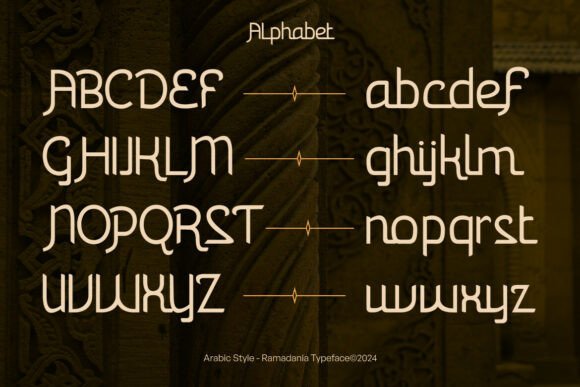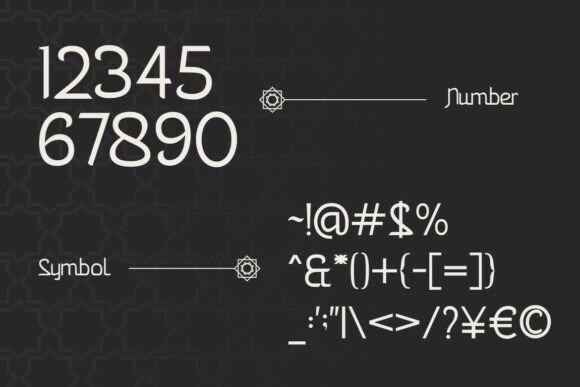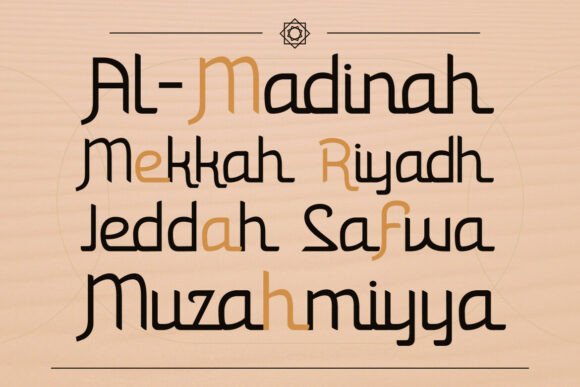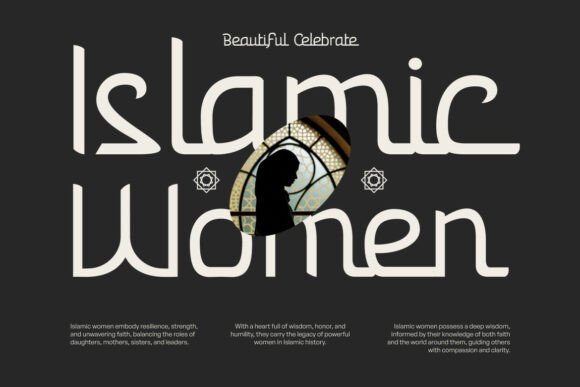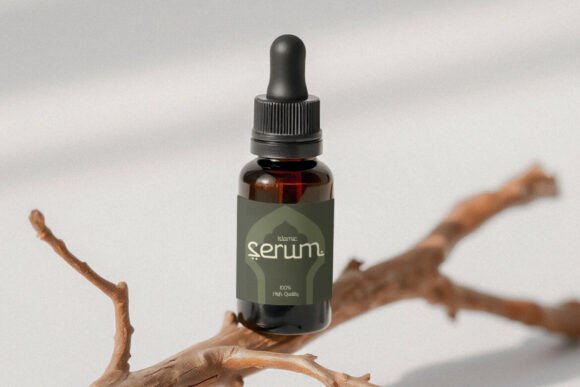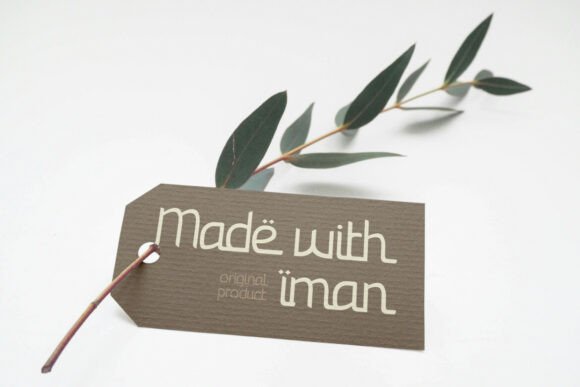
Introduction to Ramadaniya Font
Have you ever stumbled upon a design that perfectly captures the essence of a moment? Perhaps it’s the gentle hue of a sunset or the intricate patterns of a traditional craft. For me, it’s the beauty of Arabic typography that often sparks my creative journey. And one font that stands out in my mind is the stunning Ramadaniya Font – a true gem for designers seeking to infuse their projects with cultural depth and spiritual meaning.
As a valuable design resource, the Ramadaniya Font offers a unique blend of modern geometry and traditional Arabic typography, resulting in a high-quality typeface that radiates elegance and calmness. Whether you’re working on an Islamic-inspired design, a Ramadan campaign, or a cultural packaging project, this font is sure to elevate your creative project to the next level.
Key Features of Ramadaniya Font
- Features a unique and elegant design style, perfect for adding a touch of sophistication to any creative project.
Honest Review: Ramadaniya Font
As a designer, I’m always on the lookout for unique and high-quality design resources to elevate my creative projects. The Ramadaniya Font is one such find that has caught my attention.
What works well about this font is its intricate and elegant design, perfect for adding a touch of sophistication to any design project. The font is available for free download, which is a huge plus, and it’s suitable for both personal and commercial use.
However, there are a few limitations to consider. The font is only available in a limited number of weights and styles, which may not be ideal for designers who require a wider range of options.
- ⚠️ Limited weight and style options
- ⚠️ May not be suitable for designs that require a bold or dramatic font
Overall, I’m impressed with the Ramadaniya Font, and I would definitely recommend it to designers who are looking for a high-quality, elegant font for their creative projects.
Tips for Getting the Most Out of Ramadaniya Font
To get the most out of the Ramadaniya Font, use it with a transparent background to create visually appealing designs. Experiment with different font sizes, colors, and styles to add depth and interest to your designs.
The Ramadaniya Font is ideal for use in creative projects such as posters, flyers, brochures, and social media graphics. It is also great for use in presentations, documents, and other written content where a unique and eye-catching font is desired.